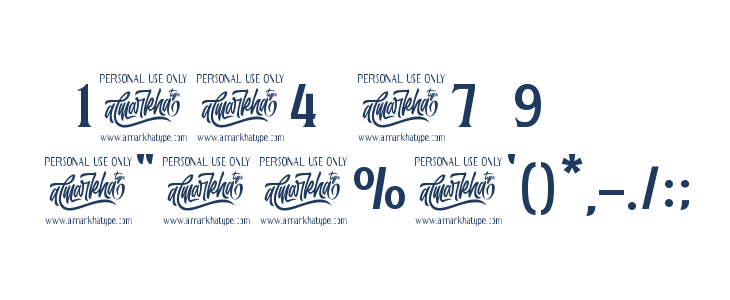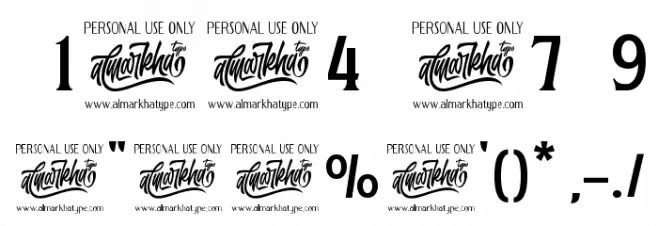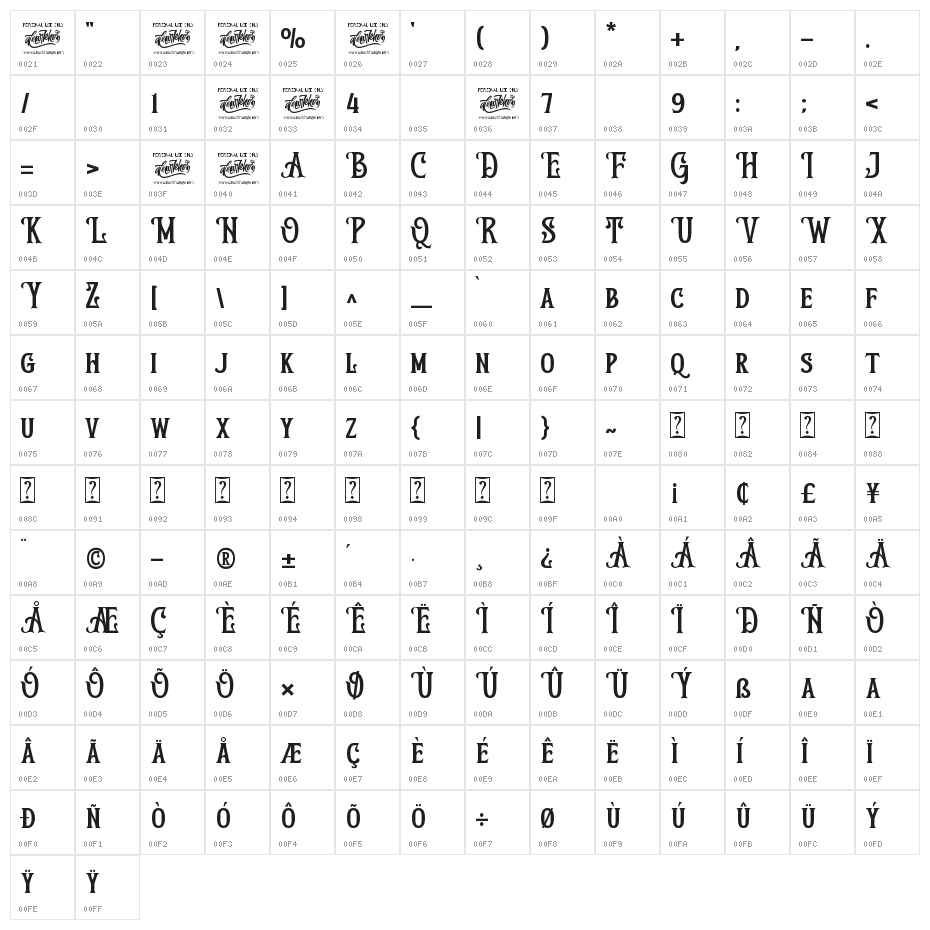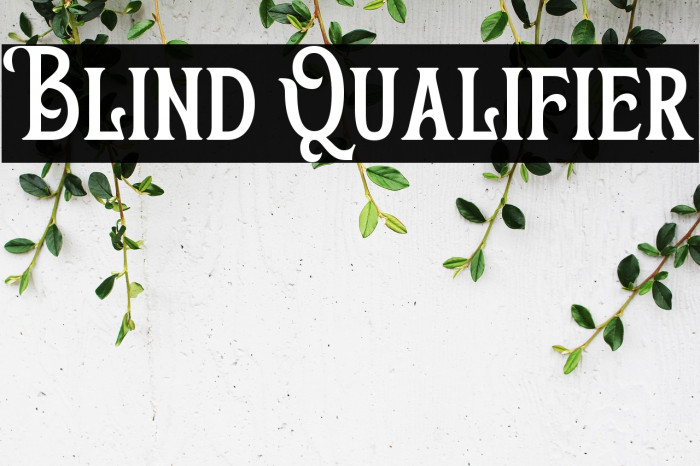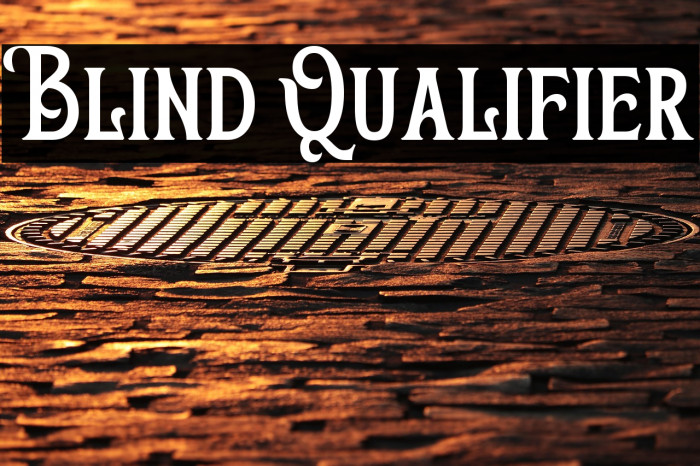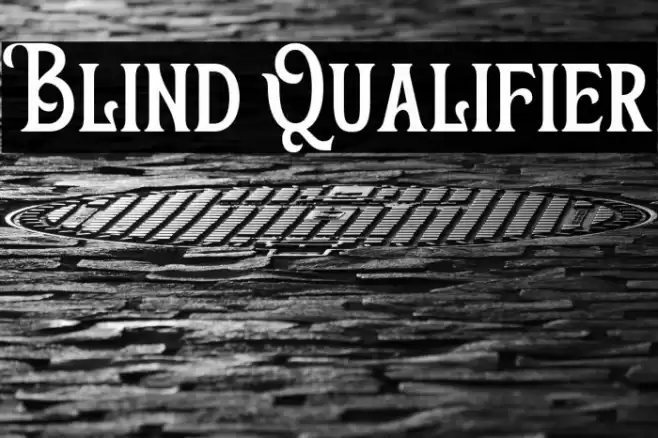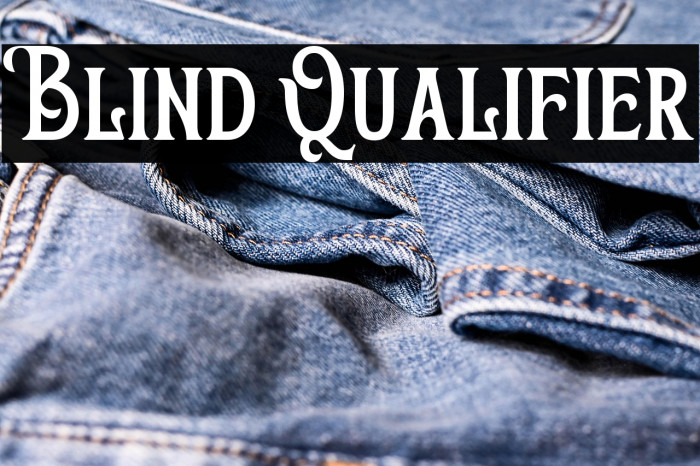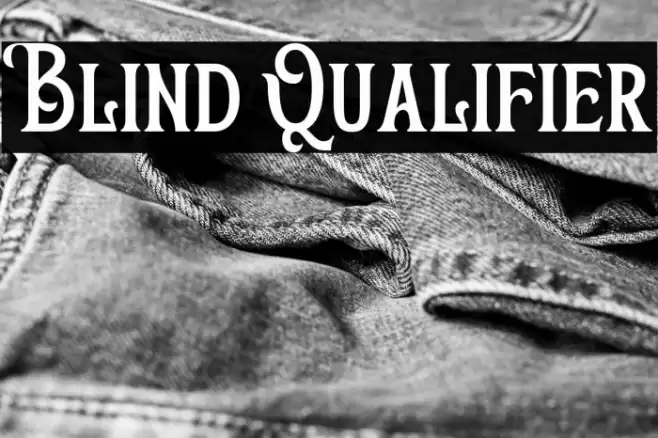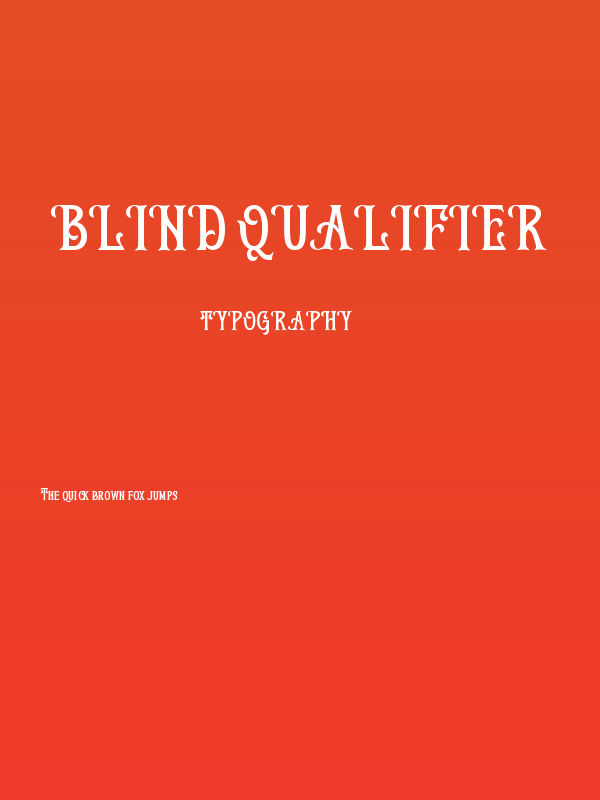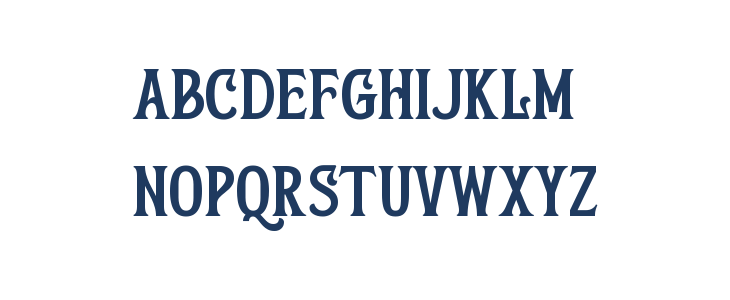
Blind Qualifier Font
Blind Qualifier Description
This font exhibits a bold and decorative style with a distinct flair. The uppercase letters feature unique serifs that add a touch of elegance and complexity, while the lowercase letters maintain a consistent design that complements the uppercase. The numbers are bold and slightly condensed, providing a strong visual impact. Special characters are designed with the same decorative elements, ensuring a cohesive look across all glyphs. The overall aesthetic is both classic and modern, making it versatile for various design applications.
| Proposed Projects | Ideal for branding, headlines, posters, and any project requiring a bold, decorative touch. |